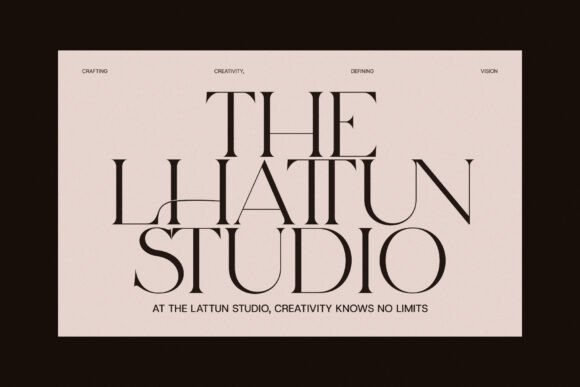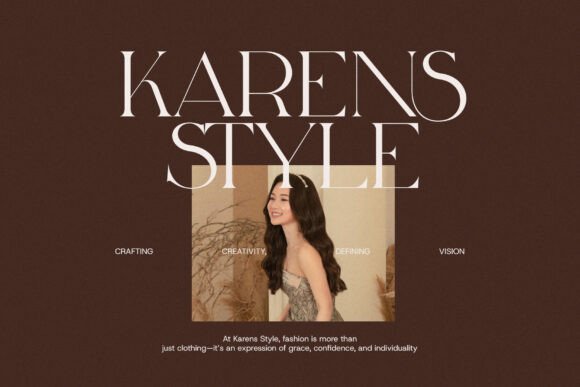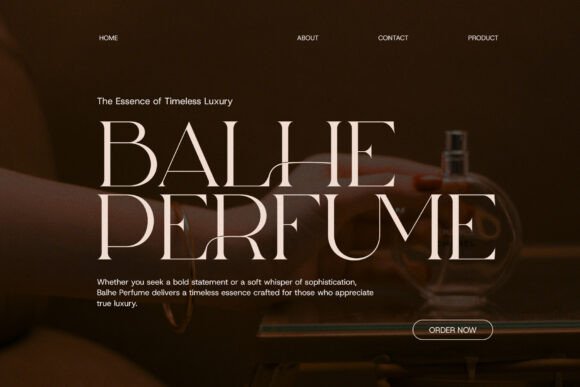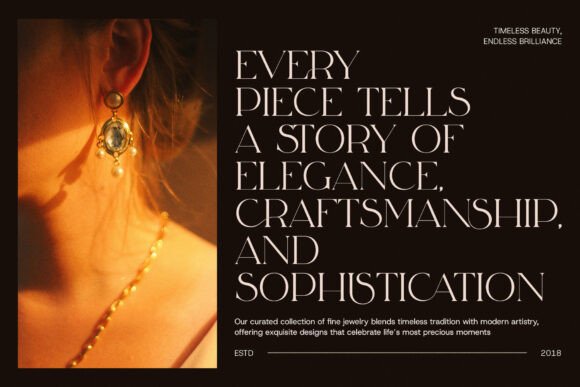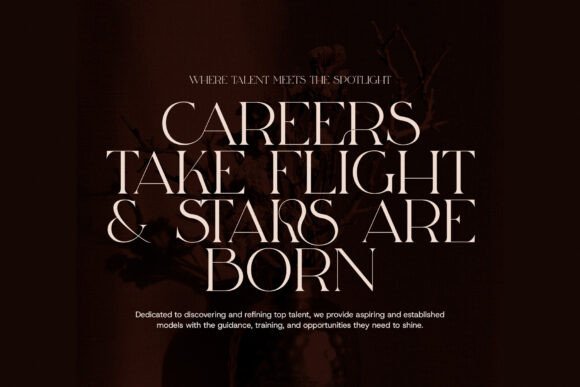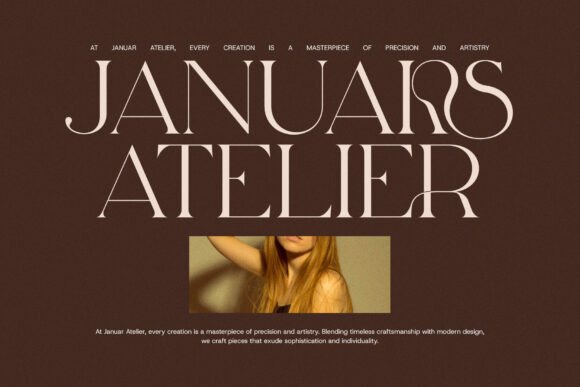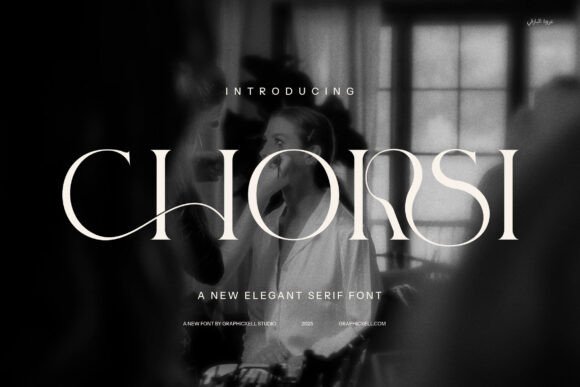
Introducing Chorsi Modern Serif Font: Elevate Your Designs with Timeless Elegance
In the world of typography, a well-crafted font can make all the difference in elevating your design projects from ordinary to extraordinary. Chorsi Modern Serif Font is a stunning typeface that embodies the perfect blend of classic elegance and modern sophistication. Designed to add a touch of luxury and class to your creations, Chorsi is an excellent choice for designers and crafters seeking to make a lasting impression.
A Perfect Blend of Classic and Modern Elements
Chorsi Modern Serif Font boasts a unique and refined aesthetic that seamlessly merges traditional serif elements with a contemporary twist. The result is a beautifully crafted typeface that exudes timeless elegance and sophistication. With its well-balanced letterforms, Chorsi provides excellent readability while maintaining an upscale, premium look that is sure to captivate your audience.
Unique Features: Ligatures and Alternate Forms
What sets Chorsi apart from other serif fonts is its distinctive ligatures and alternate forms. These unique features allow designers to create striking, one-of-a-kind typography that stands out from the crowd. The ligatures and alternates in Chorsi add an extra layer of sophistication and elegance to your designs, making it perfect for branding, logo design, magazines, websites, advertisements, and more.
Chorsi Modern Serif Font is an incredibly versatile typeface that excels in both digital and print projects. Whether you’re designing a chic boutique logo, crafting a memorable food brand identity, or developing an eye-catching magazine layout, Chorsi brings personality and charm to the table. Its adaptability and range make it an excellent choice for a wide range of design applications, from editorial design to branding and advertising.
Applications for Chorsi Modern Serif Font
So, where can you use Chorsi Modern Serif Font? The possibilities are endless! Here are a few ideas to get you started:
• Branding and Logo Design: Create a lasting impression with a custom logo that showcases your brand’s personality and style.
• Magazines and Editorials: Add a touch of sophistication and elegance to your magazine layouts, articles, and headlines.
• Websites and Digital Platforms: Elevate your website’s typography and create a memorable user experience with Chorsi’s refined aesthetic.
• Advertisements and Marketing Materials: Stand out from the competition with eye-catching ads and marketing materials that showcase your brand’s unique personality.
Why Choose Chorsi Modern Serif Font?
With so many fonts available, why choose Chorsi Modern Serif Font? Here are just a few reasons why designers and crafters love Chorsi:
• Timeless Elegance: Chorsi’s classic serif elements and modern twist create a timeless aesthetic that never goes out of style.
• Unique Features: The ligatures and alternate forms in Chorsi add an extra layer of sophistication and elegance to your designs.
• Versatility: Chorsi excels in both digital and print projects, making it an excellent choice for a wide range of design applications.
• Readability: Chorsi’s well-balanced letterforms provide excellent readability, ensuring that your message is conveyed clearly and effectively.
In conclusion, Chorsi Modern Serif Font is a beautifully crafted typeface that offers a perfect blend of classic elegance and modern sophistication. With its unique ligatures and alternate forms, Chorsi provides a refined, sophisticated aesthetic that is perfect for designers and crafters seeking to elevate their projects. Whether you’re working on a branding project, magazine layout, or website design, Chorsi is an excellent choice for adding a touch of luxury and class to your creations.